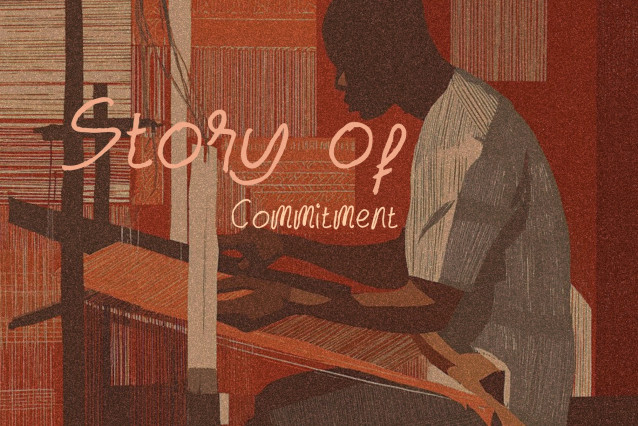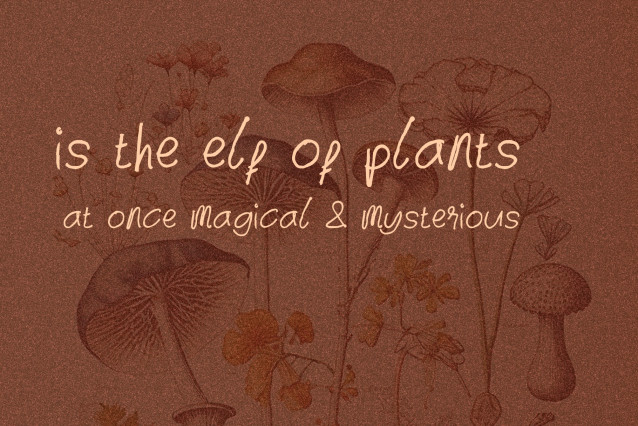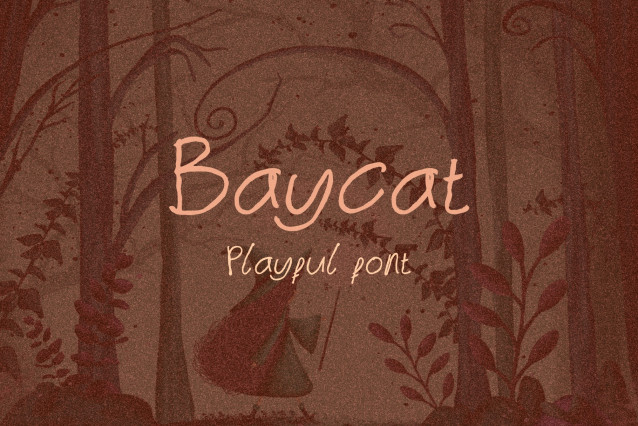
Baycat _freebie Font is a simple and friendly handwritten font. Its natural and unique style makes it incredibly fitting to a large pool of designs. The only limit is your imagination!